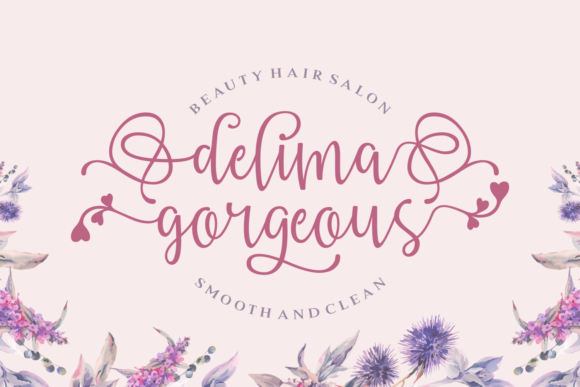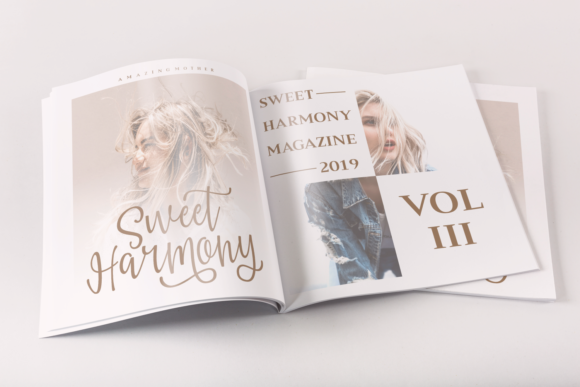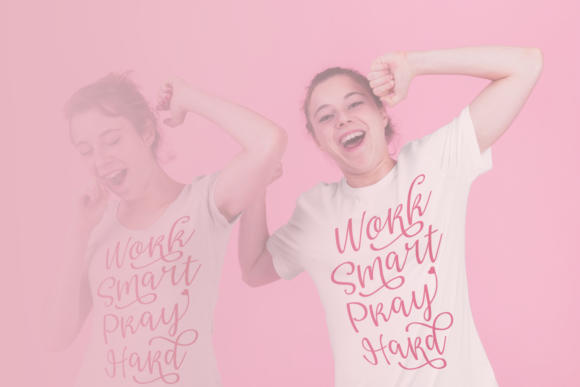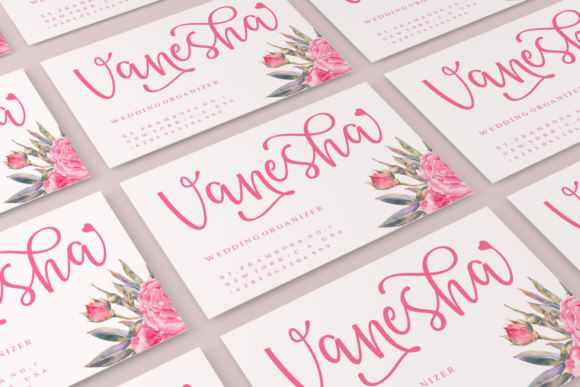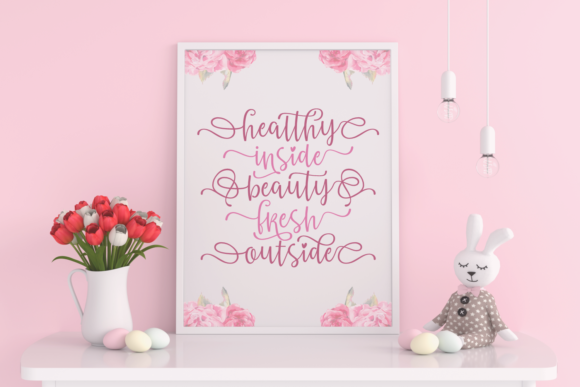
Amazing Mother Font
About Amazing Mother Font
Amazing Mother is an equally sweet and elegant handwritten font with a bold feel. This amazing typeface features bold swashes that will turn any design project into a piece of art.